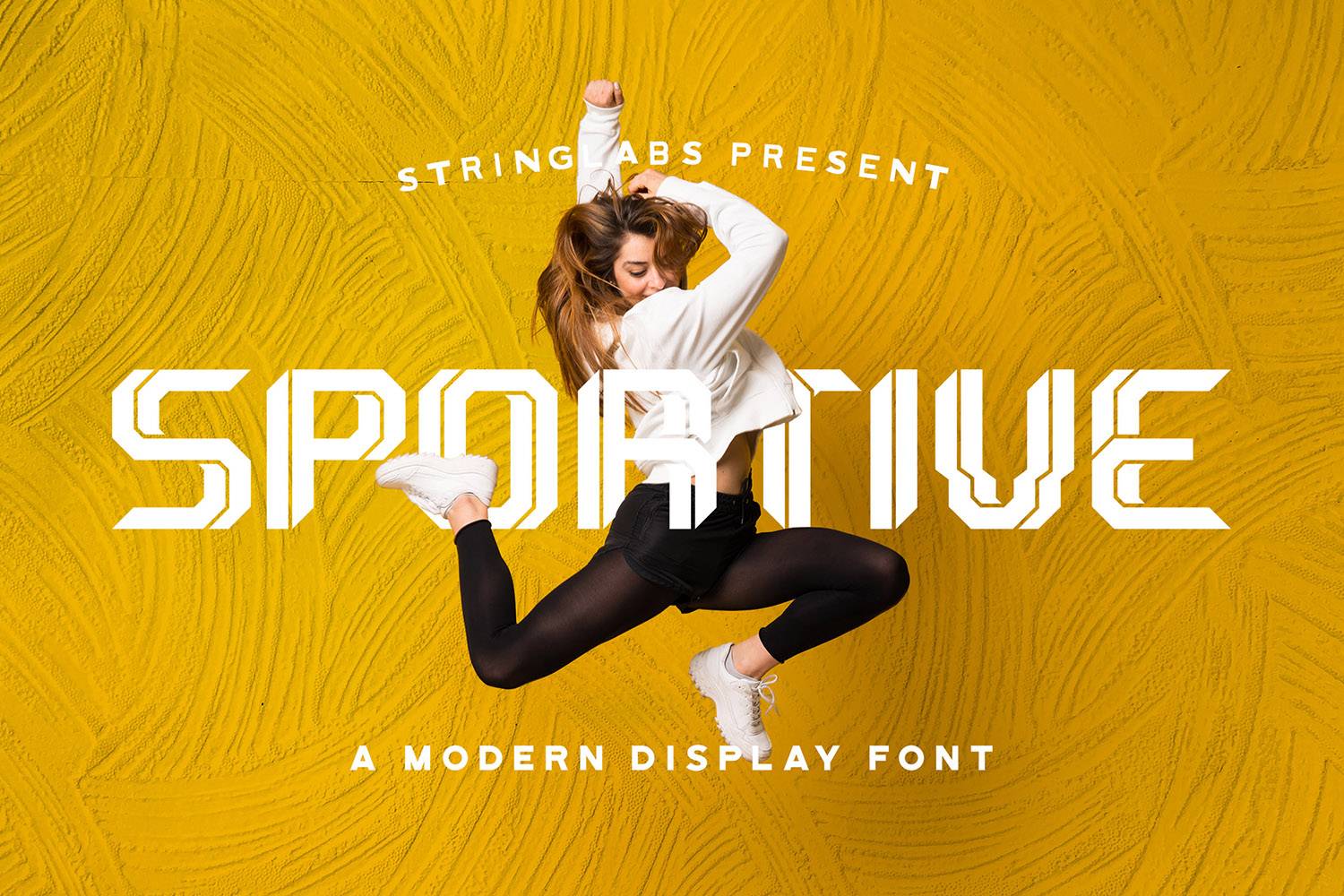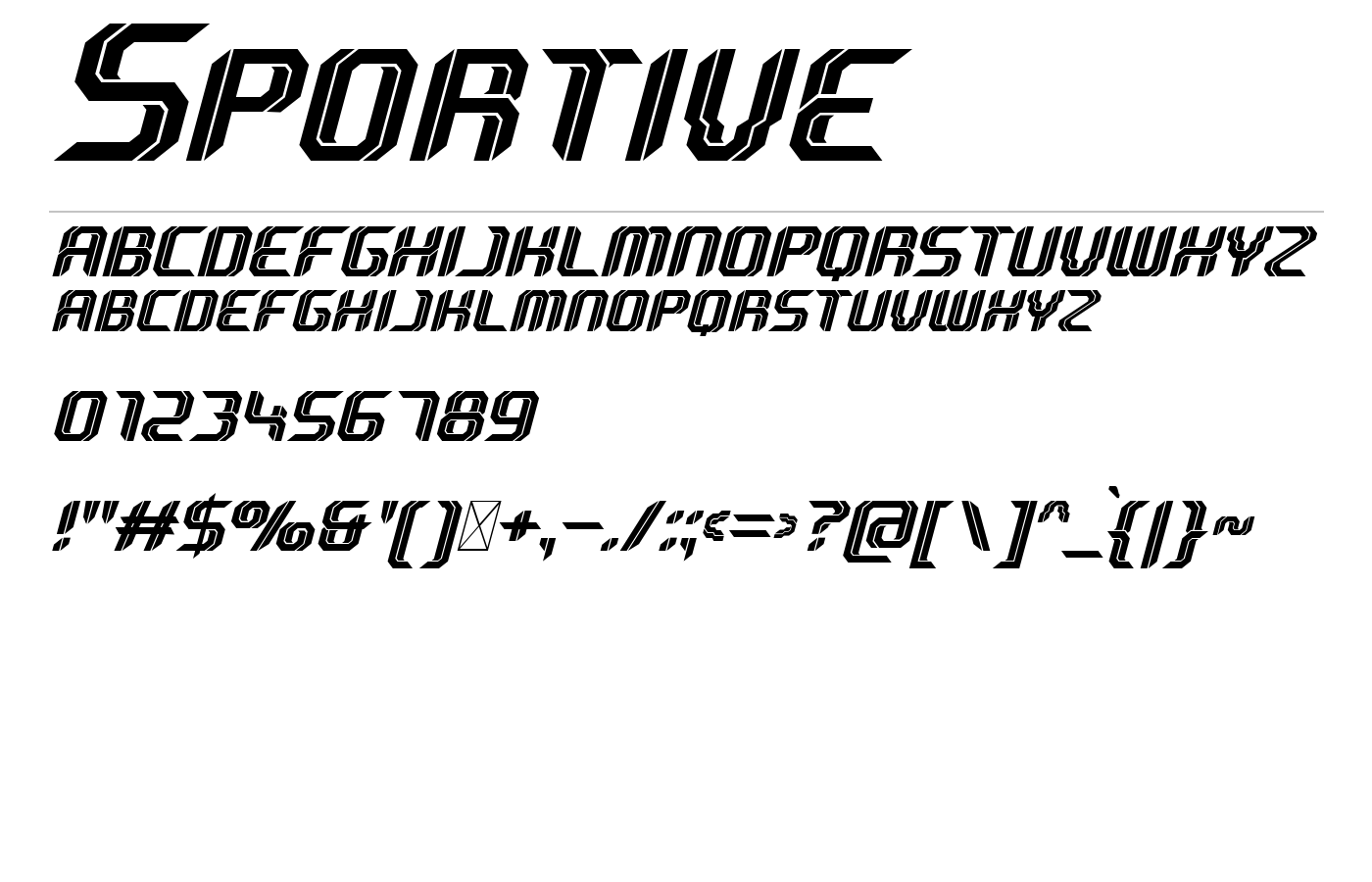
Sportive is a bold, condensed sans serif font with an angular, futuristic design that exudes speed and energy. Its high contrast between thick and thin strokes, sharp geometric edges, and italic slant create a dynamic, sporty feel perfect for athletic branding, sportswear logos, and energetic headlines. This font works well where a modern, powerful, and performance-driven impression is needed.
Sportive Font
About Sportive Font
| Font family | Sportive Font |
| Designer | Candi Erwanto |